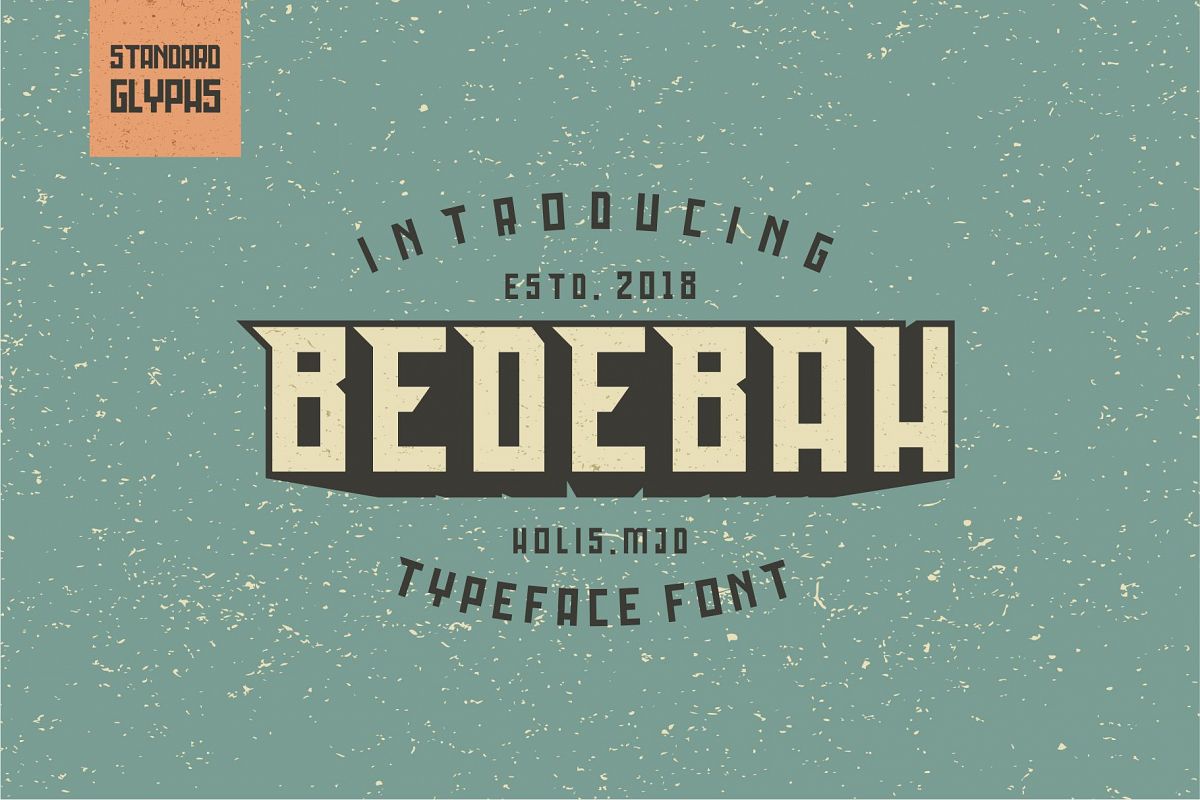
Bedebah Typeface
Bedebah
Bedebah Typeface is a slab serif font with the impression of a mighty man, this font is suitable for logo designs, posters, product labels, advertisements / promotions, flayers, brochures, videos, or whatever designs that need a strong and bold touch.What you get: